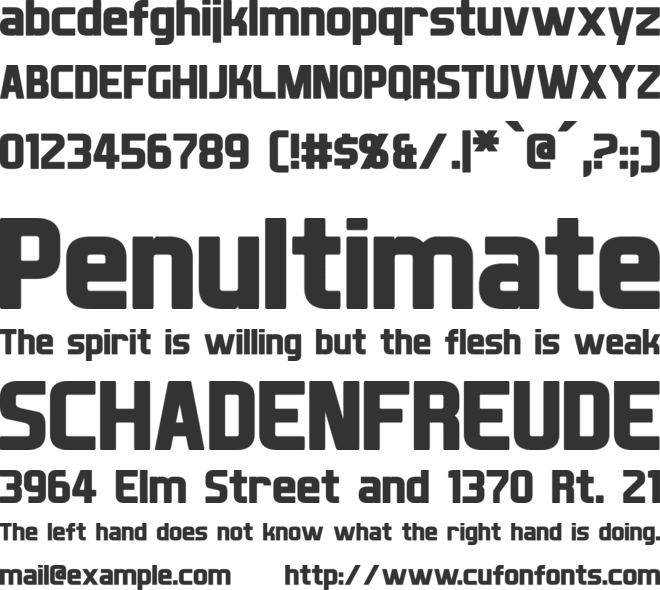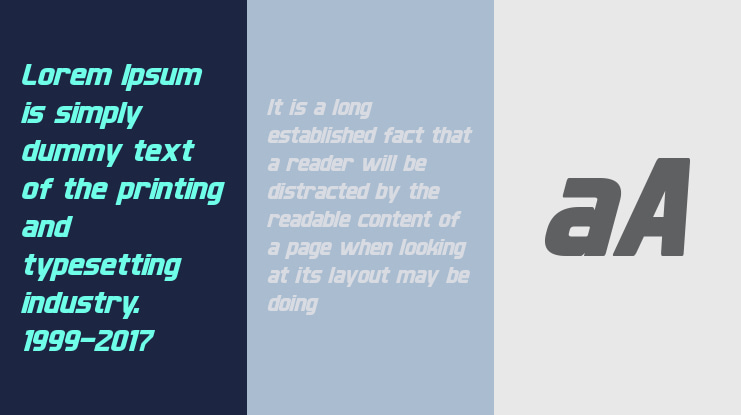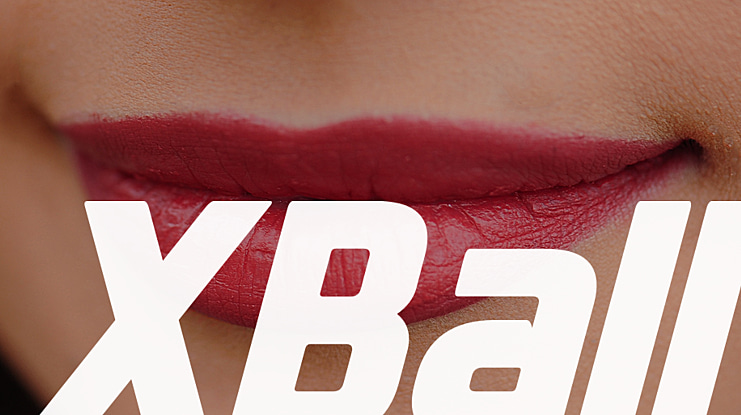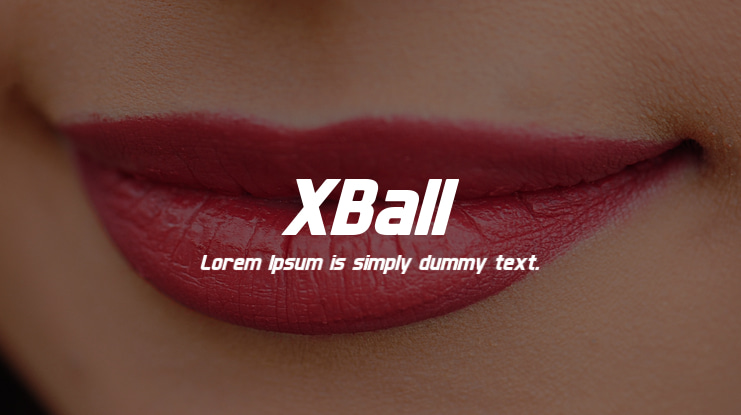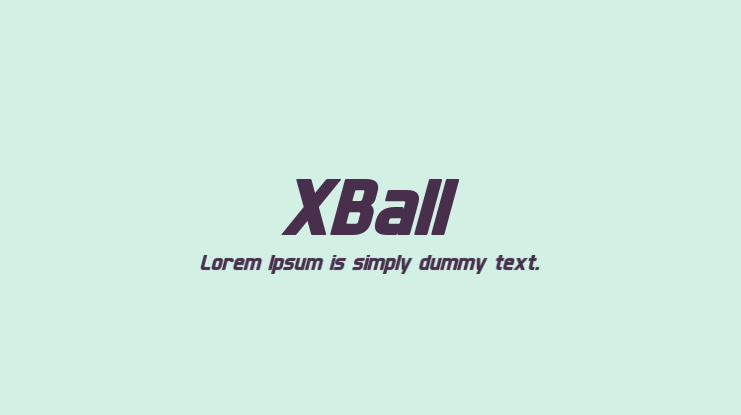
XBall Font Family
Neale Davidson
This simple solid typeface is loosely based on several title logos from Electronic Arts's (EA's) sports gaming titles. Includes full alphabet, numerals, extended punctuation, and Euro. Includes italic version.